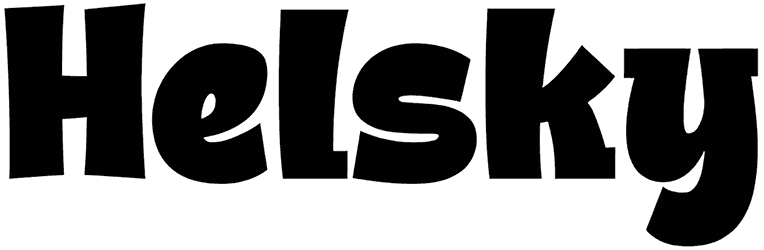
Helsky Font
For a design with a happy theme, this cartoon font can be tempting and interesting. Helsky has bold and playful letters and conveys a lovely and comical vibe. For diverse projects from packaging and apparel to game screens and posters, you can set this banner font and strikingly illustrate a cute design.